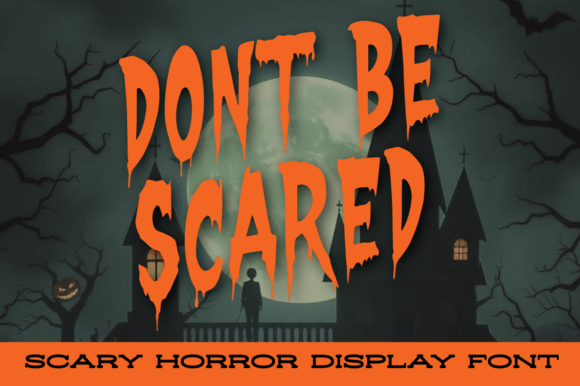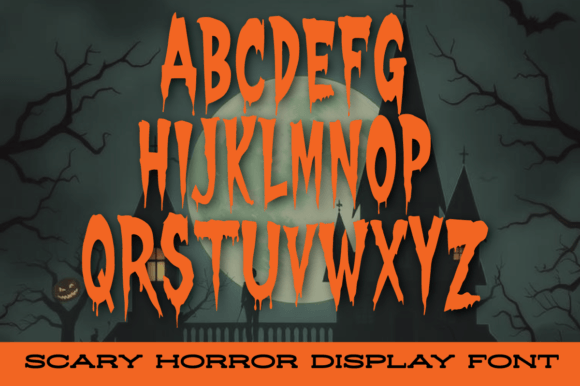
Introduction to Nytemare Font
The “Nytemare” font evokes an unsettling, eerie atmosphere perfect for horror themes.
Its letters are jagged and uneven, as though scratched or carved by a trembling hand “Nytemare” embodies darkness and fear, perfect for horror posters, creepy titles, or anything that needs to evoke dread.
Key Features of Nytemare Font